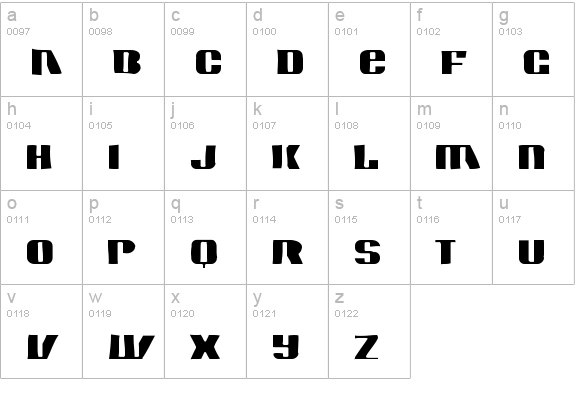
Contour Generator Gaunt font is a modern and stylish typeface that effortlessly combines elegance and edginess. Its sleek lines and sharp angles give it a unique and eye-catching look that is perfect for a variety of design projects. Whether you're working on branding, advertising, or editorial design, this font will make a bold statement. The Contour Generator Gaunt font is available for free download at FontsMarket.com, making it easily accessible for designers and creatives looking to add a touch of sophistication to their work. With its clean and contemporary design, this font is sure to elevate any project and leave a lasting impression on viewers. Don't miss out on the opportunity to enhance your designs with the Contour Generator Gaunt font - download it for free today at FontsMarket.com and start creating stunning visuals that stand out from the crowd.